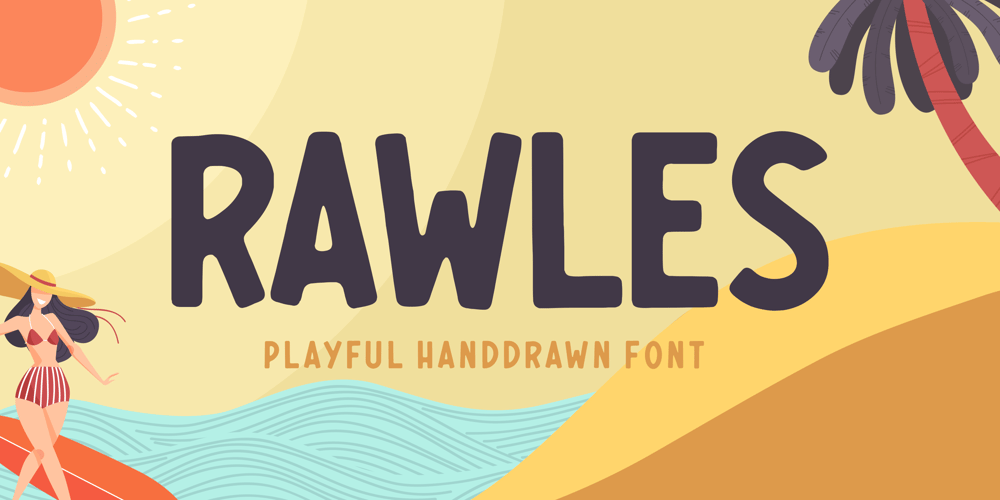
Rawles Font Family was designed by Restu Angga and published by Balpirick. Rawles contains 1 styles and family package options. RAWLES is a Playful Handdrawn Font.Rawles is a bold and playful display font. Add this vintage style font to your creation. No matter the topic, this font will be an incredible asset to your fonts’ library, as it has the potential to elevate any creation.RAWLES also multilingual support.Enjoy the font, feel free to comment or feedback, send me PM or email.Thank you!